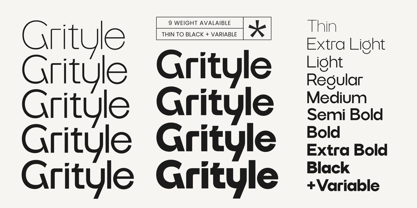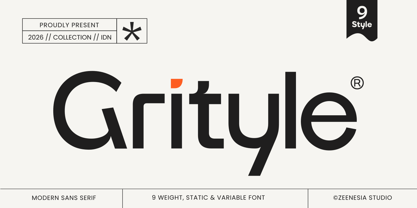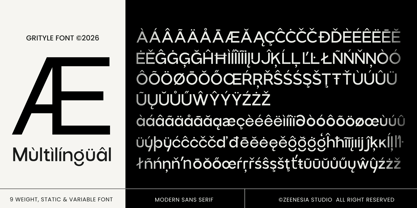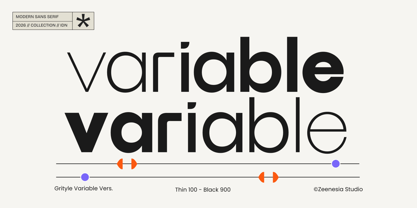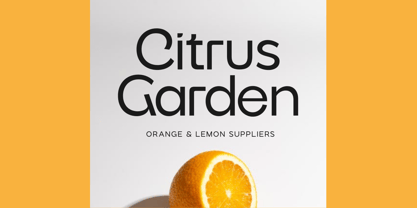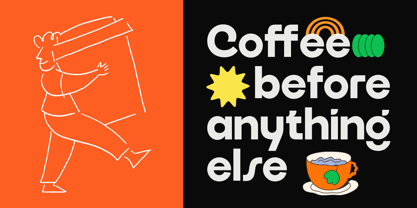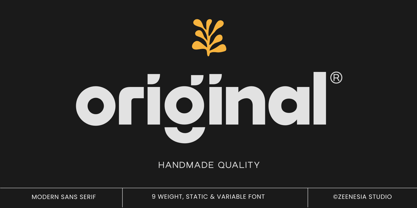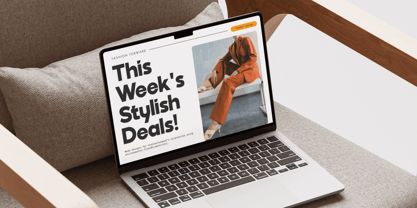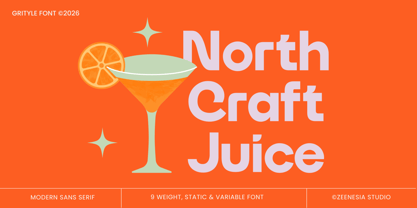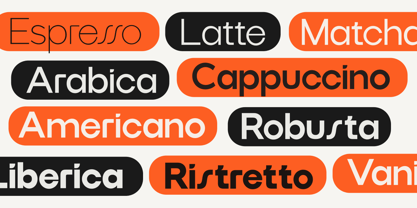
Grityle
The Grityle Font Family was designed by Doni Purwoko and published by Zeenesia Studio. Grityle contains 10 styles and family package options. More about this family
Grityle is a modern sans serif typeface designed with precision, clarity, and contemporary elegance in mind. Built to deliver a clean yet distinctive visual presence, Grityle balances geometric structure with subtle character details, making it highly versatile across a wide range of design applications. Featuring 9 weights in both static and variable formats, Grityle offers exceptional flexibility for branding, editorial layouts, digital interfaces, packaging, and corporate identity systems. Its well-crafted proportions, smooth curves, and confident letterforms ensure strong readability while maintaining a refined and professional tone. Grityle is perfect for designers seeking a typeface that feels modern, bold, and adaptable — a reliable foundation for both minimalist compositions and expressive visual identities. A timeless sans serif for forward-thinking design.